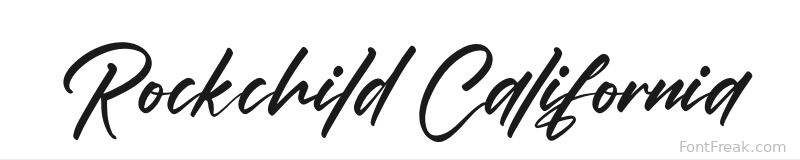
Rockchild California
Rockchild California by Perspectype Studio is a captivating script font that exudes a modern, laid-back vibe, perfect for a variety of design projects. This font features elegant, flowing letterforms with a slight slant, giving it a dynamic and energetic feel. The stroke weight varies throughout the characters, creating a beautiful contrast that enhances legibility while adding a touch of sophistication. The generous spacing between letters ensures clarity, making it suitable for both headlines and body text.
This versatile font is ideal for numerous use cases, including wedding invitations that call for a romantic touch, trendy restaurant menus that want to convey a casual yet chic atmosphere, and vibrant movie posters that require an eye-catching title. Additionally, it can be utilized in branding materials for small businesses aiming to establish a unique identity, as well as in social media graphics for content creators looking to engage their audience with stylish typography.
What truly sets the Rockchild California font apart is its ability to blend elegance with a relaxed charm, making it a standout choice for those who want to make a memorable impression. Its fluidity and artistic flair allow it to breathe life into any design, making the Rockchild California font free download a must-have for anyone serious about their typography.